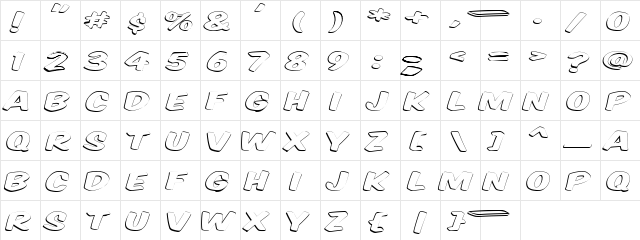
VTCSuperMarketSaleOpenDisplay Regular
Design Context for VTCSuperMarketSaleOpenDisplay Typeface
VTCSuperMarketSaleOpenDisplay brings ornamental detail and strong personality to headlines and identities, where visual impact matters more than quiet functionality.
Font Pairing: Pair with a clean neutral sans-serif for body copy to let VTCSuperMarketSaleOpenDisplay's character lead without overwhelming the composition.
Pro Tip: Treat VTCSuperMarketSaleOpenDisplay as the centrepiece of your typographic hierarchy. One strong heading set in a decorative face can carry an entire layout.